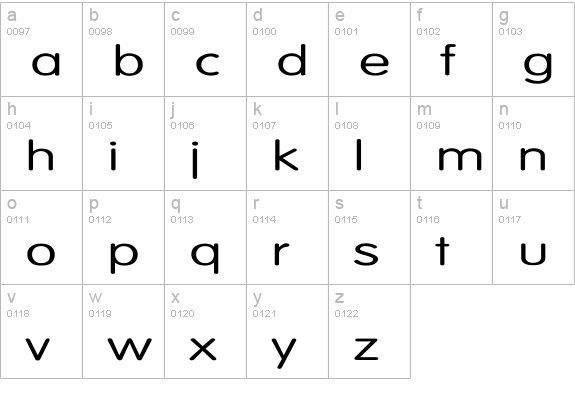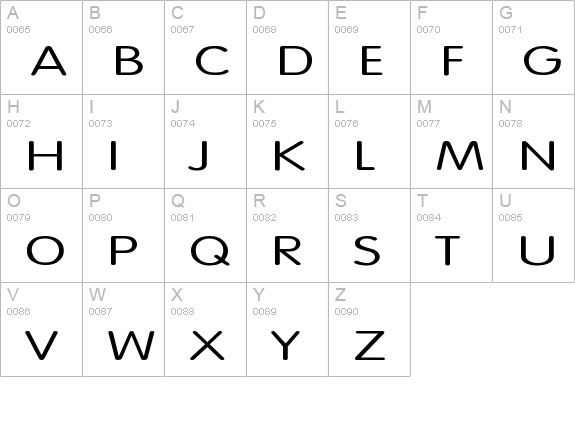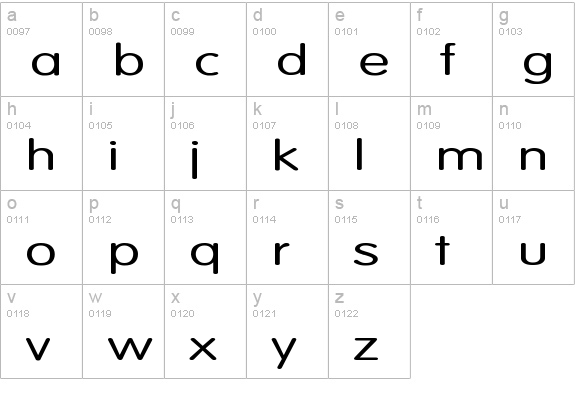
Vogue-Normal Ex is the standard, neutral variant in the Vogue typeface family \xE2\x80\x94 well suited to general body text, paragraphs, and standard typographic work.
Introducing Vogue-Normal Ex, a font that effortlessly exudes elegance and sophistication. With its sleek lines and timeless appeal, this font is perfect for adding a touch of class to any design project. From fashion editorials to branding materials, Vogue-Normal Ex seamlessly blends contemporary style with a classic aesthetic. But what makes Vogue-Normal Ex truly stand out is that it is not only stunningly beautiful, but also free. Yes, you read that right! This remarkable font is freely available to download at FontsMarket.com, making it accessible to designers and creatives around the world. Designed with meticulous attention to detail, Vogue-Normal Ex offers a wide range of letterforms that are both striking and versatile. Whether you're looking to create bold headings that command attention or delicate typography that exudes grace, this font has you covered. Its legible and refined curves ensure readability at any size, while its extensive character set guarantees compatibility with various design applications. With Vogue-Normal Ex, you can effortlessly elevate your designs, giving them a touch of sophistication that will captivate your audience. From high-end fashion campaigns to luxurious branding projects, this font is a must-have for any creative endeavor. So why wait? Download Vogue-Normal Ex for free today at FontsMarket.com, and let your creativity soar to new heights.